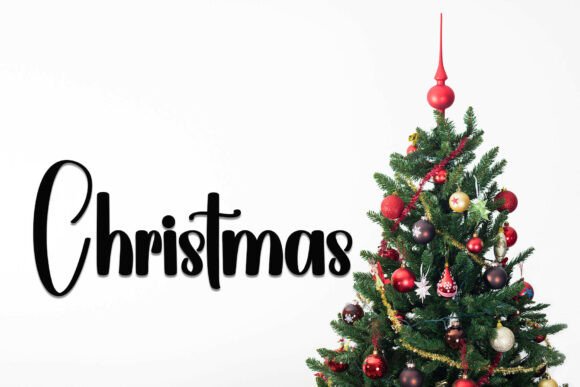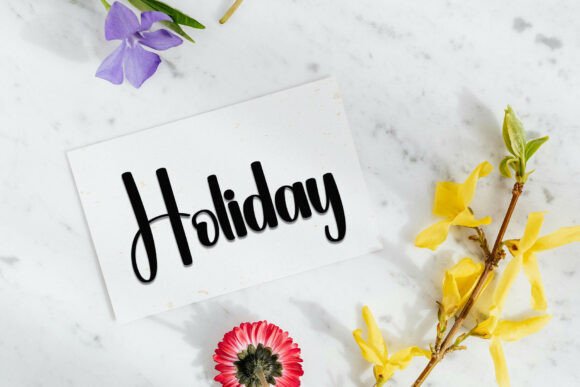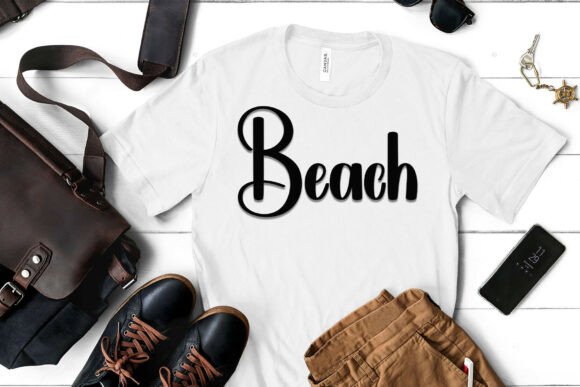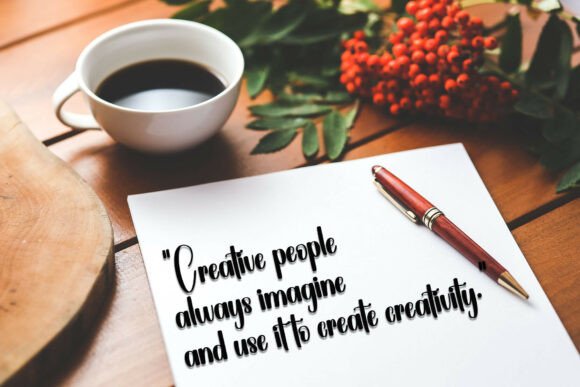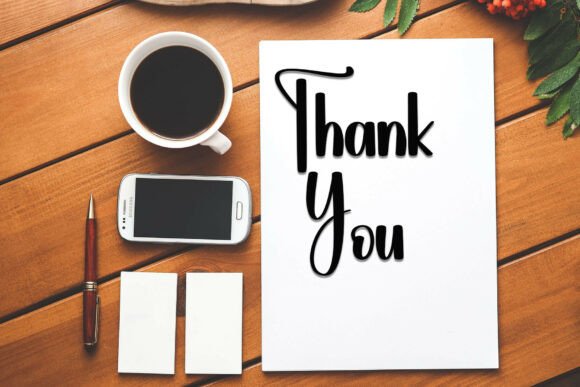
The Sweet Charm of Autography Font: A Designer’s Delight
I’ll never forget the time I was working on a wedding invitation project, and my client asked for a font that was ” elegant, yet casual; romantic, yet playful.” I scoured the internet, tried countless fonts, but nothing seemed to fit the bill. That was until I stumbled upon Autography Font. ✨ This beautiful, cursive handwritten font has been a game-changer for my designs, and I’m excited to share its charm with you.
An Honest Review of Autography Font
- ✨ Sweet and Cursive: Autography Font is a gentle, handwritten font that adds a touch of warmth to any design.
- ✅ Versatile: It looks stunning on a variety of design ideas, from branding and logos to wedding materials and greeting cards.
- 🌸 Romantic and Playful: This font exudes a sense of joy and romance, making it perfect for projects that require a touch of whimsy.
While Autography Font is an excellent choice for many projects, there are a few things to keep in mind: 🤔
- ⚠️ Limited Use on Small Sizes: Due to its intricate details, Autography Font may not be the best choice for very small font sizes or designs with limited space.
- ⚠️ Some Letter Combinations: As with any font, some letter combinations may not flow as smoothly as others. Be sure to proofread your work to ensure the best results.
- Experiment with OpenType features and glyphs to add more variety to your text.
- Take advantage of stylistic alternates and swashes to add more flair to your design.
The Backstory of Autography Font
Autography Font was designed with the intention of creating a beautiful, handwritten font that captures the essence of elegance and playfulness. The designer aimed to craft a font that would be versatile, easy to read, and perfect for a wide range of design projects. While the real story behind Autography Font’s creation may be unknown, its charm and character have won the hearts of designers and crafters worldwide.
Q: What type of projects is Autography Font best suited for?
A: Autography Font is perfect for branding, logos, wedding materials, greeting cards, fashion designs, lookbooks, marketing promotions, and any project that requires a touch of elegance and whimsy.
Q: Is Autography Font available in different weights or styles?
A: While Autography Font may not have multiple weights or styles, its versatility and charm make it an excellent choice for a wide range of design projects.